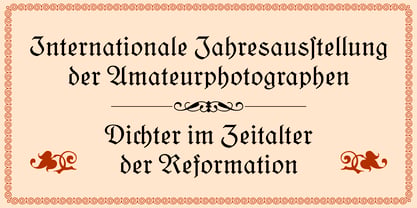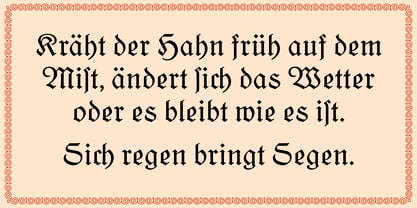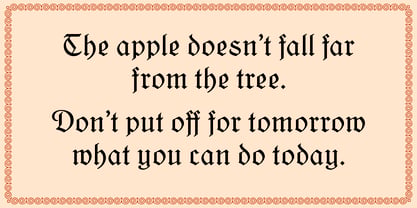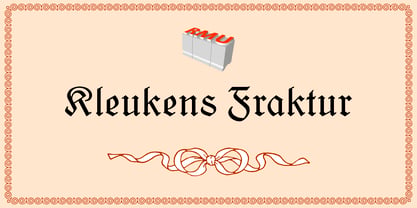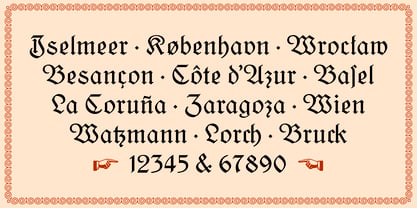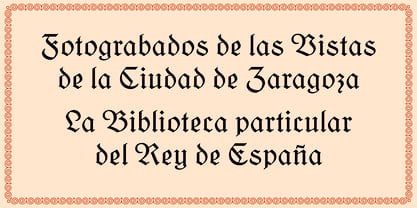
Kleukens Fraktur™
by RMU
The Kleukens Fraktur Font Family was designed by Friedrich Wilhelm Kleukens, Ralph M. Unger and published by RMU. Kleukens Fraktur contains 1 styles. More about this family
Kleukens Fraktur is a revival of Friedrich Wilhelm Kleukens hot-metal font, first released by Stempel in 1911. Since this blackletter font has a large x-height and short descenders, it is better legible even in bodytexts.
This font contains the letter long s which can be reached in two ways. Either you use the OT feature 'historical forms' to turn the round s into the long s, or you type the integral sign [ ∫ ] on your keyboard. There are two graphic elements implemented, a corner element und a straight element for framing. The corner element lies on the Product sign [ ∏ ], the straight element you will find on the pi-key [ π ]. Furthermore it is recommended to activate the OT feature discretionary ligatures.